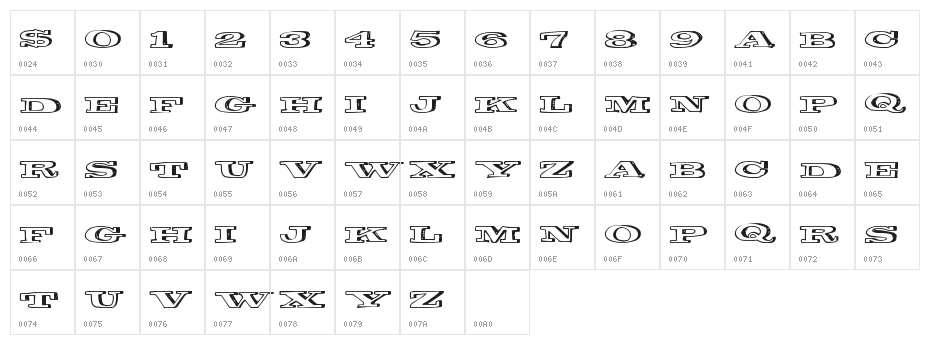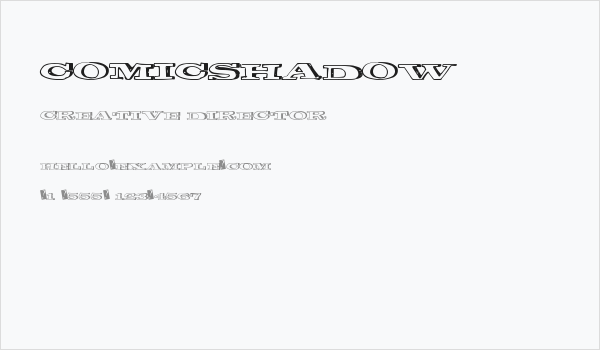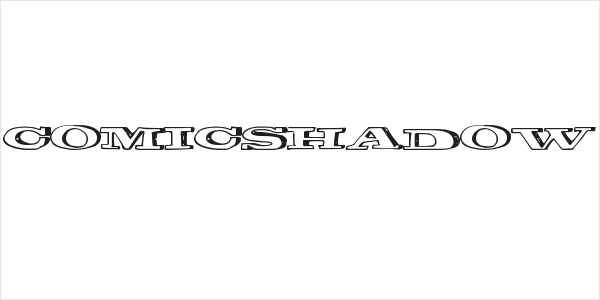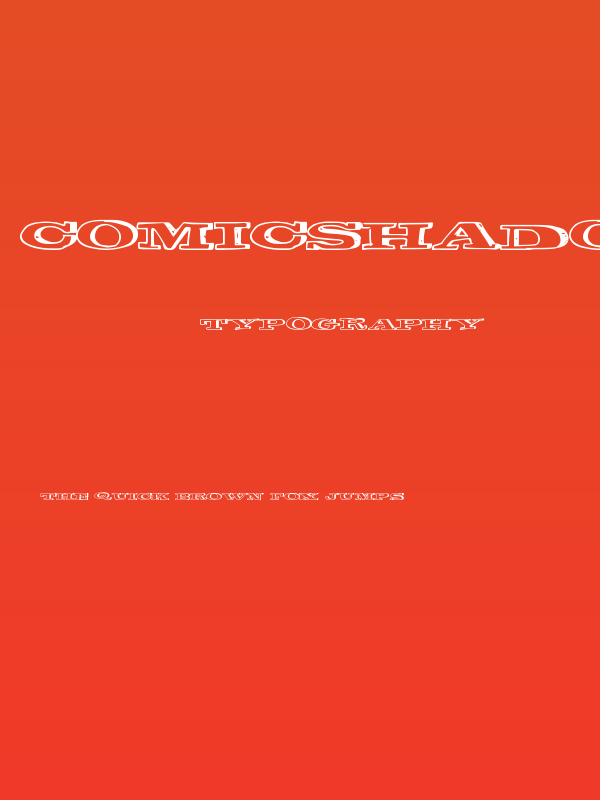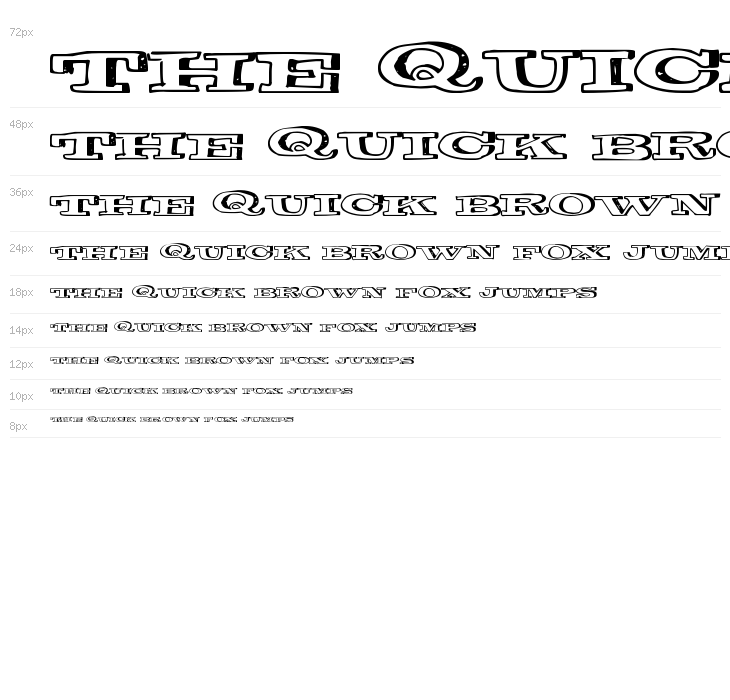
ComicShadow Font
ComicShadow Description
This font features a bold, playful style with a distinct shadow effect that gives each character a three-dimensional appearance. The uppercase letters are robust and eye-catching, making them ideal for attention-grabbing headlines or titles. The numerals and special characters maintain the same boldness and shadowed style, ensuring consistency across all text elements. The font's design is reminiscent of comic book lettering, with a fun and informal vibe that adds a touch of whimsy to any project.
| Overall Style | Playful, Comic |
| Proposed Projects | Ideal for comic books, children's books, playful posters, and creative branding projects. |